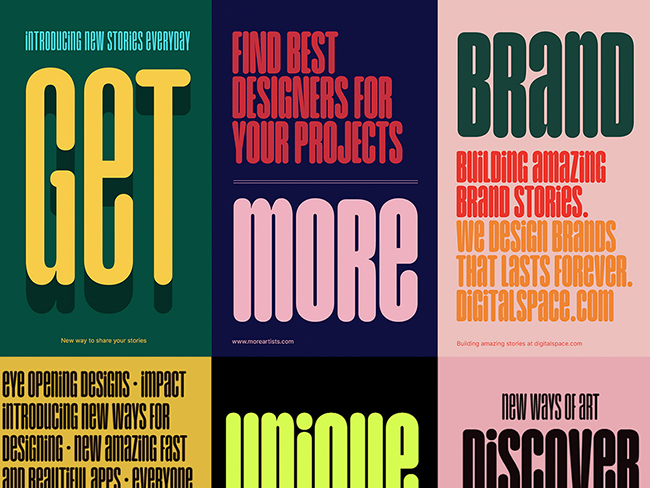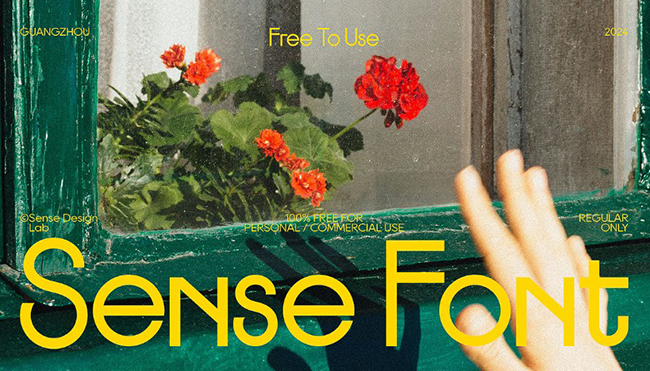
Choosing the right logo font is one of the most important decisions in brand identity design. A logo can have a strong symbol, a beautiful color palette, and a polished layout โ but if the typography feels wrong, the whole brand can look unfinished. The font carries the brandโs voice before the audience reads the message.
In 2026, designers are not only looking for fonts that look modern. They need logo fonts that work across websites, social media avatars, packaging, app icons, pitch decks, posters, product labels, business cards, and digital ads. A font may look impressive in a large preview, but a real logo font must also be readable, flexible, memorable, and strong enough to support a full visual identity.
This curated guide brings together the best logo fonts for designers in 2026, including modern sans serifs, elegant display serifs, bold condensed typefaces, creative font duos, minimalist branding fonts, and stylish typefaces for logos, packaging, editorial projects, fashion identities, startup branding, and creative design work.
Use this article as a practical typography guide, not just a download list. For each font, you will find design notes explaining where it works best, what kind of brand personality it can support, and how to use it more professionally in logo and branding projects.
Why Logo Fonts Matter More Than Ever
A logo font is not just decoration. It is a brand decision. The shape of the letters can make a company feel trustworthy, futuristic, premium, playful, editorial, minimal, bold, creative, or technical. Even before the audience understands the business, the typography creates an impression.
A clean geometric sans serif can make a startup feel modern and efficient. A high-contrast serif can make a fashion brand feel elegant and editorial. A bold condensed font can give a sports, music, or poster identity more power. A wide grotesk can make a brand feel confident and contemporary. A font duo can give a visual identity more range by combining contrast and harmony.
What a Strong Logo Font Should Do
- Create personality: the font should match the brandโs tone and audience.
- Stay readable: the logo must work in large and small sizes.
- Support a full identity: the font should work with packaging, web, social, and print.
- Feel memorable: the letterforms should have enough character to be recognizable.
- Avoid trends without purpose: modern does not always mean better if the style does not fit the brand.
- Allow customization: a logo font often becomes stronger when letters are adjusted manually.
How to Choose the Best Logo Font for a Brand
The best logo font is not the most beautiful font in isolation. It is the font that fits the brand strategy. A logo for a luxury skincare brand needs a different typographic voice than a tech startup, coffee roastery, design studio, music label, fashion brand, or wellness app.
Before choosing a font, define the brand mood. Should it feel premium or accessible? Minimal or expressive? Serious or playful? Traditional or futuristic? Calm or loud? Once the brand personality is clear, typography becomes easier to judge.
Logo Font Selection Guide
What Makes a Font Good for Logo Design?
A font can be beautiful and still be weak for logos. Logo typography needs to survive real-world conditions: small sizes, social avatars, black-and-white use, embroidery, packaging, favicon crops, dark backgrounds, light backgrounds, and fast recognition.
Readability at Small Sizes
Always test the font at the smallest size where the logo may appear. A font that looks elegant in a large preview may lose its character or readability inside an Instagram profile image or app icon.
Distinctive Letterforms
A strong logo font should not feel generic. Look for small details: unusual curves, confident terminals, interesting proportions, strong rhythm, or a memorable letter shape.
Good Spacing
Many logo fonts need manual kerning. Even a high-quality typeface may need letter spacing adjustments to work as a professional logo.
Scalability
The font should work in different sizes and formats. Test it in horizontal logo layout, stacked layout, icon pairing, packaging mockup, website header, and social avatar.
Customization Potential
The best logos often start with a font but do not end there. Designers may modify letters, adjust spacing, cut details, extend strokes, or create a custom ligature to make the wordmark more unique.
A great logo font does more than spell a brand name. It gives the brand a voice, a mood, and a visual memory people can recognize.